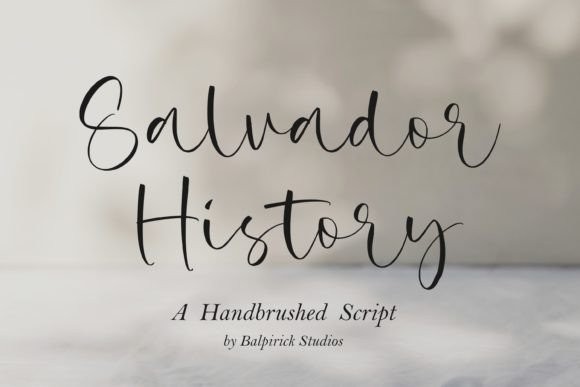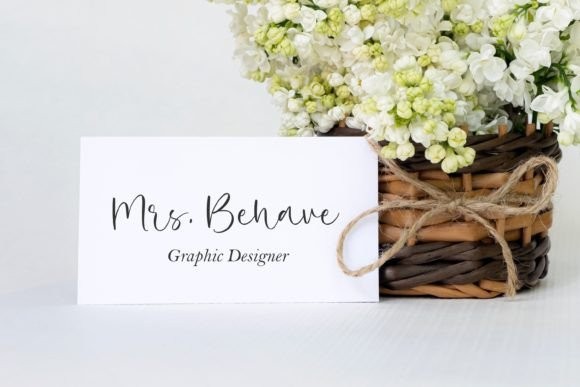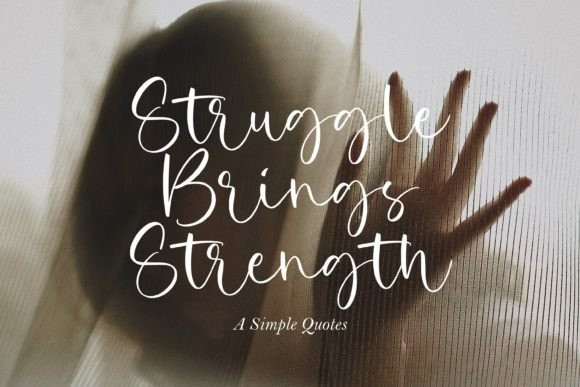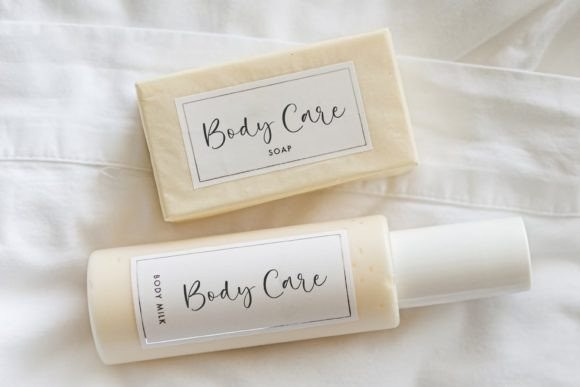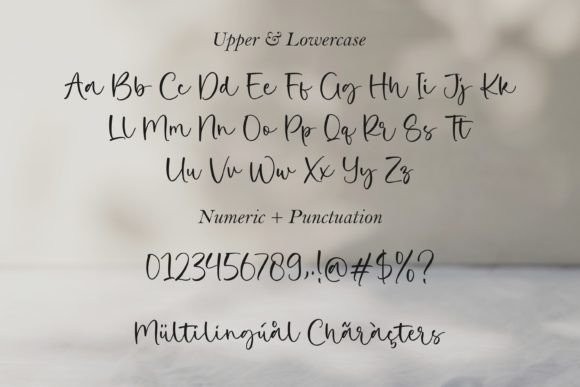
Salvador History Font
About Salvador History Font
I’m a typographer and graphic designer who’s always exploring fonts that bring style and emotion to design work. I recently came across Salvador History Font while searching for something with a personal, hand-touched feel. The name caught my eye, and once I saw the brush strokes and flow of the letters, I knew it had something special.
I used it in a branding project for a handmade product line. It added a real human feel to the design. The script style brought warmth and elegance that typical fonts just didn’t match. That’s why I had to write this review and share it with others who love meaningful type.
What Is Salvador History Font and Who Designed It?
Salvador History Font is a modern handbrushed script font. It was designed by Restu Angga and published by Balpirick Studio. This font is all about giving your design projects a natural and handcrafted feel. The letters are drawn with brush strokes that look real, making each word feel alive on the screen or on paper.
Balpirick Studio is known for expressive fonts that look personal and polished. Salvador History fits right into their style. From the flowing curves to the slight imperfections, every character feels like it was drawn with purpose. This is not just another script. It carries a vibe, almost like a signature. Whether you’re designing for a brand or putting together an invitation, it adds emotion to the message.
Features of Salvador History Font
Salvador History is packed with style. It features a full set of handwritten characters, including both upper and lowercase letters. The handbrushed script font that’s perfect for logos, social graphics, and invitations. Each stroke feels smooth but not over-polished, keeping that natural texture that makes it stand out.
This font includes multilingual support, so it works with many languages. It’s great if your audience is global. You’ll also get a complete character set, including special characters used in branding and packaging. The spacing is tight, and the flow between letters keeps the text looking clean and connected.
Whether you’re working on graphics design ideas, web use, or product packaging, Salvador History adapts easily. It’s also available as a webfont, making it useful for modern digital projects. The style sits in that sweet spot between modern and organic, so it feels stylish without trying too hard.
Salvador History Font is made for design work that needs emotion. You can use it in branding, especially for businesses that want to feel personal or handmade. It’s great for logos, especially those in beauty, fashion, food, or creative fields. If you’re working on invitations, this font brings that extra something that feels sincere and warm.
For digital use, it shines in social media graphics and headers. As a webfont, it works well in banners and hero images. The flowing letters draw attention without being too dramatic. It also fits well in product packaging, especially for artisan or natural brands.
People use Salvador History in greeting cards, quote designs, and even personal blogs. It’s also strong in advertising when you want to stand out without using a standard font. If you’re designing posters or custom items like mugs or shirts, the font brings charm and authenticity. Whether it’s a big brand or a personal project, Salvador History gives your message personality.